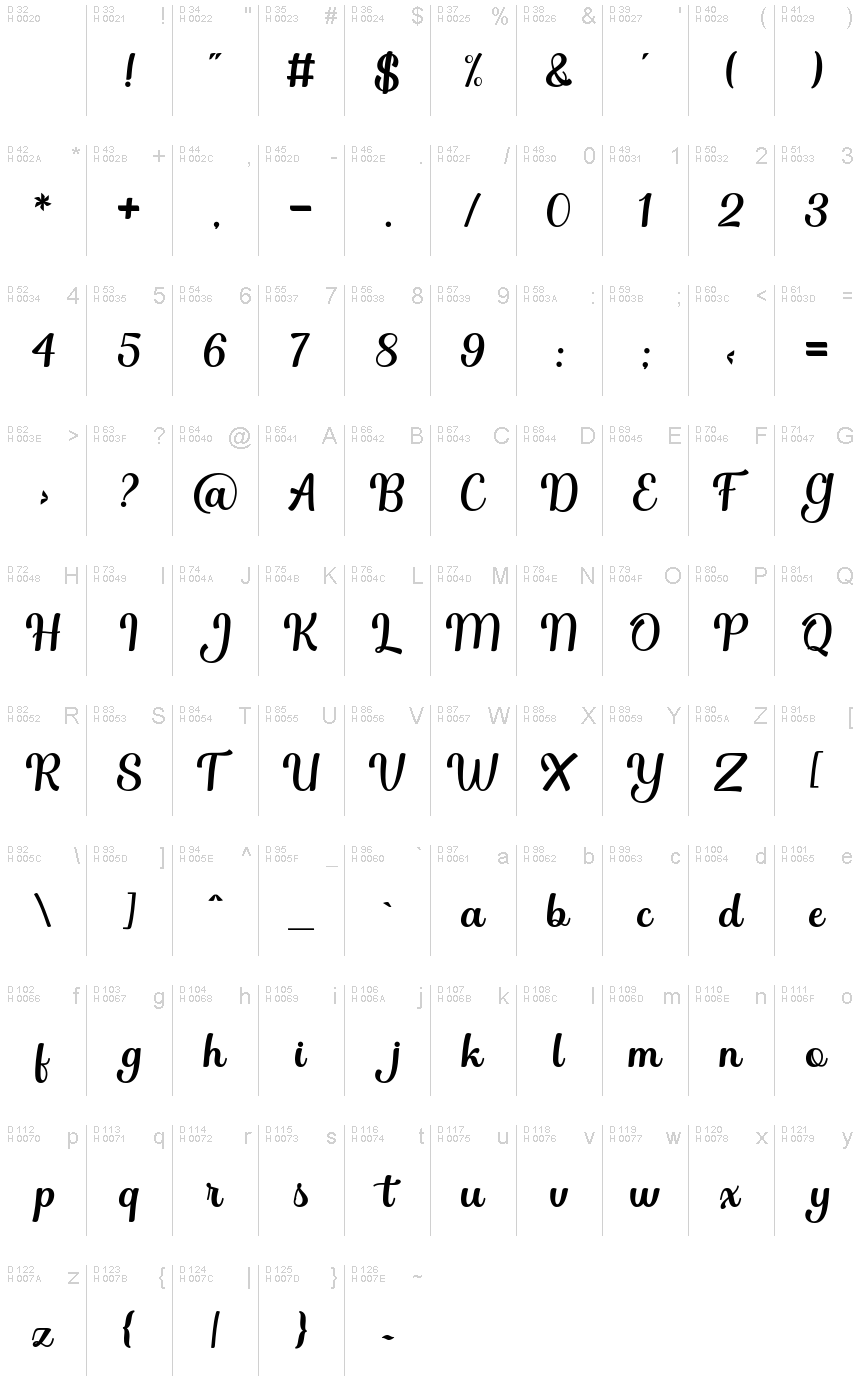
Singtton Vintage Regular
Singtton Vintage, a creation by Pista Mova, carries the charm of an intimate handwritten note with its elegant and fluid strokes. Its style evokes a sense of nostalgia and personal touch that is reminiscent of a time when each word was crafted with care. With graceful curves and a timeless aesthetic, this font exudes a classic vibe that transcends the ordinary.
Ideal for projects that demand a personal and artisanal feel, Singtton Vintage lends itself beautifully to wedding invitations, boutique branding, or any design endeavor that requires a touch of vintage sophistication. It stands out in contexts where the human element is celebrated and cherished, making every application feel as though it's been personally addressed with finesse and affection.